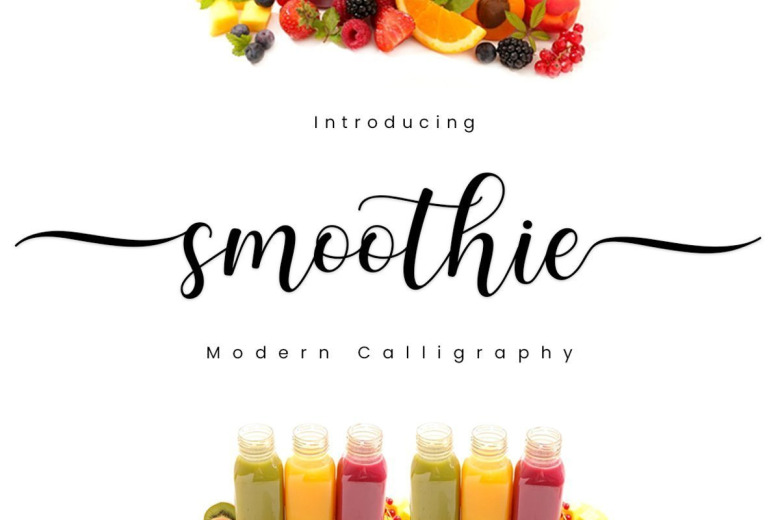
Smoothie Font
Smoothie Calligraphy Script Font feels equally charming and elegant. It looks stunning on wedding invitations, thank you cards, quotes, greeting cards, logos, business cards and every other design which needs a handwritten touch.